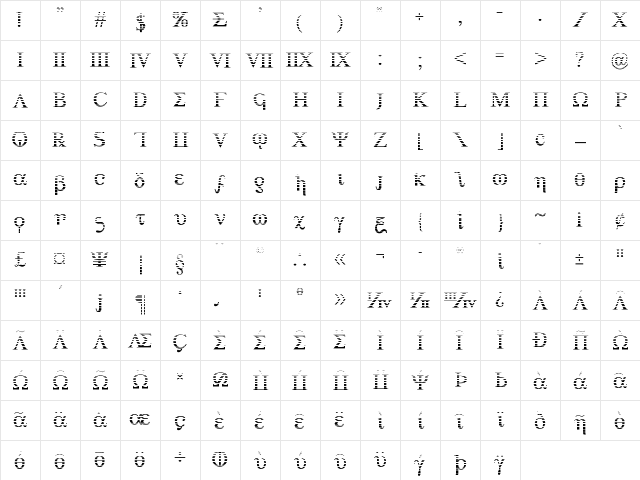
Achilles Gradient Regular
Design Context for Achilles Gradient Typeface
Achilles Gradient is a composed and adaptable typeface that performs quietly and consistently across a wide range of design contexts.
Pro Tip: Use Achilles Gradient in both headline and body roles to test its range before committing to a single application.